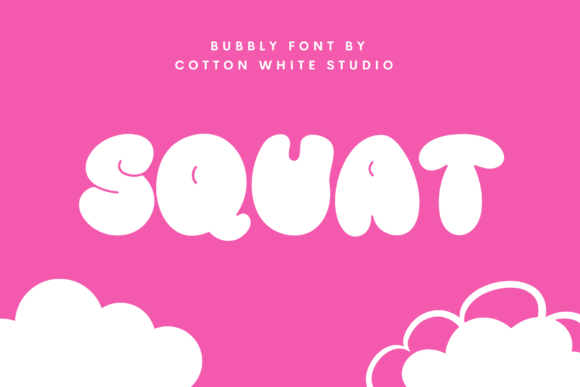
Introducing Squat Font, the ultimate choice for those seeking a font that not only makes a statement but also exudes power and confidence. Created by the talented designers at Lemon Downloads, Squat Font is the perfect addition to your collection if you're looking for a bold and impactful look.
With its thick and chunky letterforms, Squat Font commands attention and instantly grabs the viewer's gaze. Whether you're designing a card game, poster, or logo, this font will undoubtedly leave a lasting impression. Its strong presence and striking appearance ensure that your message will stand out from the crowd.
Despite its boldness, Squat Font remains highly legible and easy to read. This makes it an excellent choice for a wide range of projects, from eye-catching headlines to detailed paragraphs. You won't have to sacrifice readability for style with Squat Font.
What sets Squat Font apart from the rest is its versatility. It seamlessly adapts to various design themes and genres, making it a go-to option for any creative endeavor. Whether you're aiming for a modern, futuristic vibe or a vintage, retro feel, Squat Font effortlessly meets your requirements.
Not only does Squat Font possess aesthetic appeal, but it also evokes a range of emotions. Its strong and commanding nature instills a sense of confidence and authority in your designs. With this font, you can effortlessly captivate your audience and leave a lasting impression.
So why wait? Take your designs to the next level with Squat Font. Its powerful letterforms, impeccable legibility, and adaptability make it a must-have for any designer or creative individual. Stand out from the crowd and let Squat Font elevate your projects to new heights.